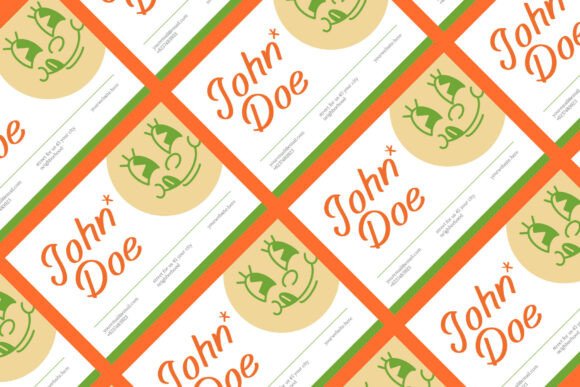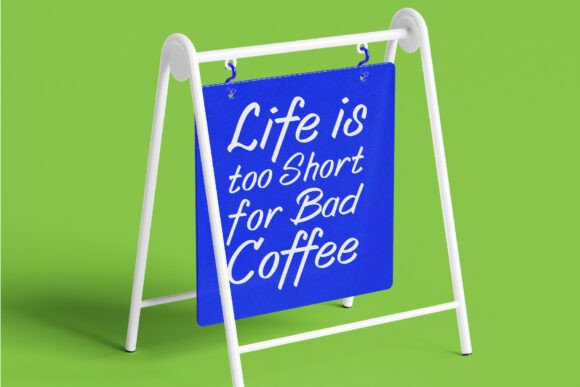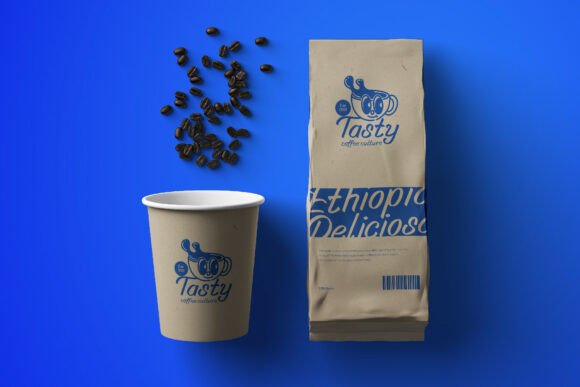
Introduction to Kola Latte Font
Do you remember the thrill of doodling in your notebook as a kid? The way the pen glided across the page, creating whimsical lines and characters that seemed to come alive? As a designer, you likely crave that same sense of creativity and freedom in your work. That’s where the Kola Latte Font comes in – a captivating handwritten font that brings a touch of nostalgia and playfulness to your designs.
With its 485 meticulously designed glyphs, the Kola Latte Font is a valuable resource for any designer looking to add a unique touch to their creative project. Whether you’re working on a logo, menu, or advertising campaign, this font’s adaptability and high quality make it an essential design resource. Plus, with its transparent background and seamless integration into various languages, you can elevate your designs without worrying about compatibility issues.
Key Features of Kola Latte Font
- High-quality font designed for creative projects, offering a unique and stylish aesthetic.
- Transparent background, allowing for seamless integration with various design elements and backgrounds.
- Designed with a high-resolution display in mind, making it suitable for use in print and digital media at resolutions up to 300 DPI.
- Font size ranges from 12pt to 72pt, providing versatility for use in various design contexts.
- Unique characteristics include its modern and playful feel, making it an excellent choice for designers seeking a distinctive look.
Honest Review: Kola Latte Font
I recently stumbled upon the Kola Latte Font, and I’m excited to share my thoughts on this design resource. First impressions are everything, and this font did not disappoint. The high-quality design is perfect for any creative project that requires a unique touch.
However, there are a few limitations to consider. The font only comes in a single weight, which may limit its use in certain design scenarios. Additionally, the font doesn’t include any alternate glyphs or ligatures, which may be a drawback for designers who require more flexibility.
Overall, I’m impressed with the Kola Latte Font. It’s a great addition to any designer’s toolbox, and its high-quality design makes it perfect for creative projects that require a unique touch. While it may have some limitations, the font’s free download and transparent background make it a valuable resource for designers.
The Kola Latte Font is a free download design resource perfect for creative projects. This high-quality font features a transparent background, making it easy to use in various design applications.
Tips for Getting the Most Out of Kola Latte Font
To get the most out of the Kola Latte Font, use it in creative projects such as logos, brochures, and social media graphics. Experiment with different font sizes, colors, and styles to achieve the desired look.
The Kola Latte Font is ideal for use in coffee shop logos, food truck branding, and other creative projects that require a unique and eye-catching design element.
Is the Kola Latte Font suitable for use in digital design projects?
Yes, the Kola Latte Font is a high-quality design resource that is suitable for use in digital design projects, including web design, mobile app design, and video game design. Its clear and legible design makes it perfect for use in digital interfaces, menus, and other interactive elements.